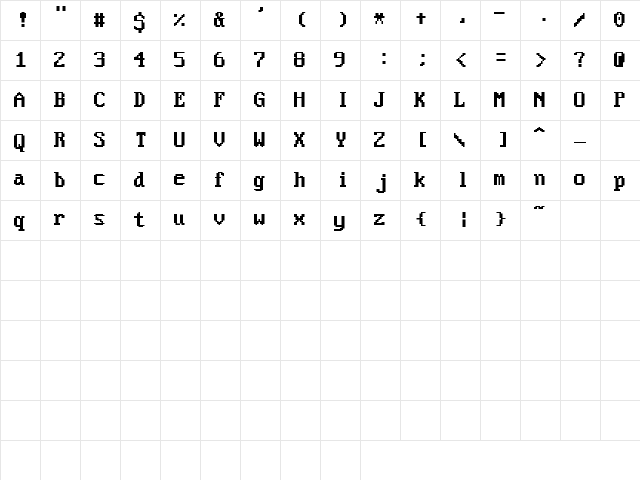
Josiah Normal
Design Context for Josiah Typeface
Josiah takes a measured approach to typography — its balanced proportions and neutral character make it a reliable workhorse for both digital and print work.